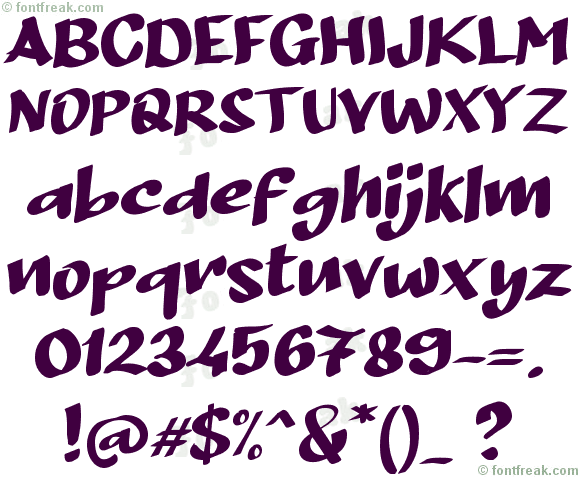
Balik Awan
About Balik Awan
Balik Awan is a captivating display font designed by Wahyu Eka Prasetya, characterized by its unique handwritten style that infuses a sense of creativity and warmth into any design project. This freeware font features a bold stroke weight and a playful contrast that gives it an inviting and approachable feel. The letters are fluid and slightly irregular, which enhances their handwritten appeal, making it perfect for designs that aim to establish a personal touch. The spacing between characters is well-balanced, ensuring readability while maintaining its artistic flair.
The Balik Awan font is particularly well-suited for a variety of creative applications. It shines brightly on wedding invitations, where its elegant and informal style can convey a sense of joy and celebration. Additionally, it enhances the aesthetic of restaurant menus, providing a friendly atmosphere that invites patrons to explore the offerings. Movie posters also benefit from Balik Awan's striking presence, allowing titles to pop with a sense of energy and excitement. Furthermore, content creators will find this font excellent for social media graphics, as it adds personality and charm to posts, making them more engaging.
Targeted primarily at graphic designers, small business owners, and content creators, Balik Awan appeals to anyone looking to add a distinctive touch to their projects. Its unique design sets it apart from more conventional typefaces, allowing users to express individuality and creativity. Whether used for digital or print applications, Balik Awan brings an element of fun and warmth that resonates with audiences. For those interested in incorporating this exceptional typeface into their work, the Balik Awan font free download is readily available, making it accessible for all creative endeavors.